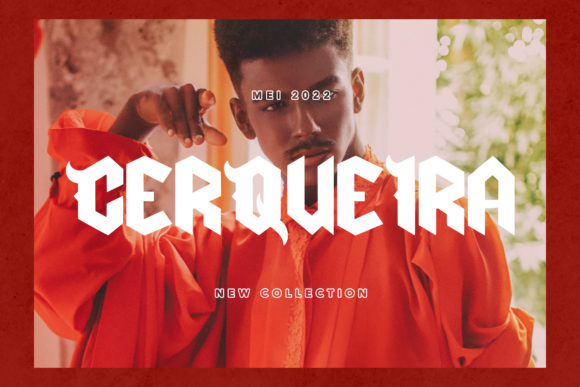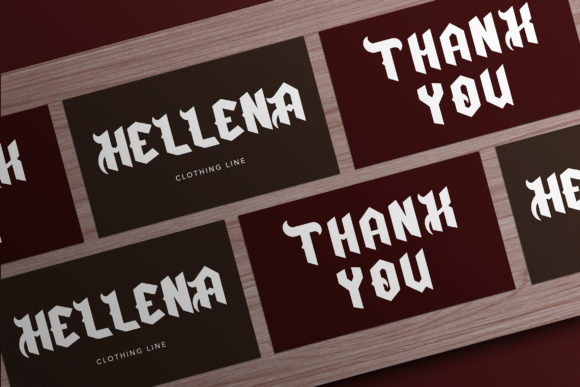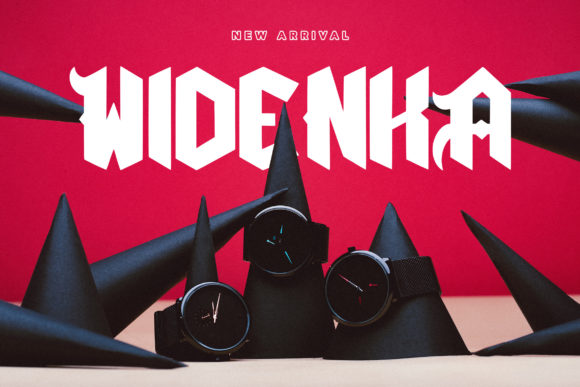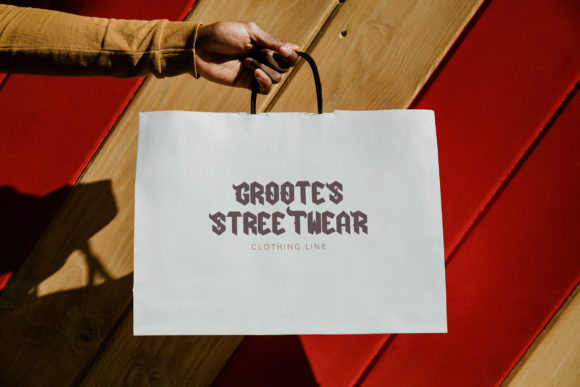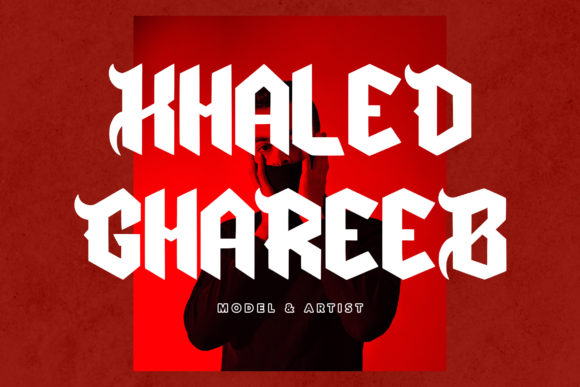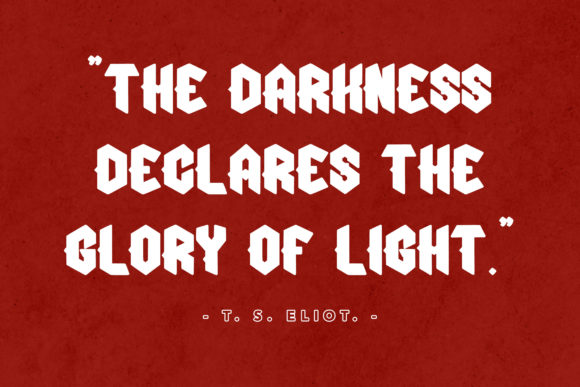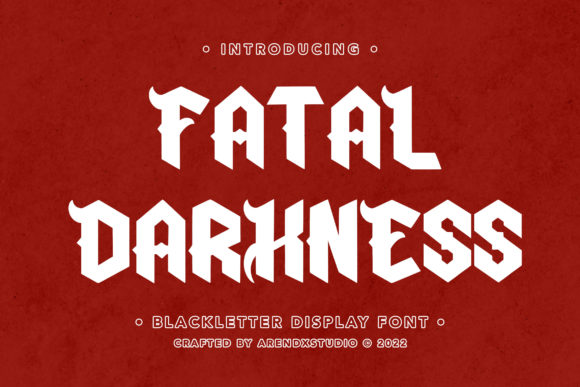
Unleash the Horror: Introducing Fatal Darkness Font
Are you a designer or crafter looking for a font that will add a touch of darkness and mystery to your projects? Look no further than Fatal Darkness Font, a stunning blackletter display font that is inspired by gothic and horror styles. With its unique shape and PUA encoding, this font is perfect for any project that requires a bold and eerie statement.
The Inspiration Behind Fatal Darkness Font
Fatal Darkness Font is a masterful blend of gothic and horror elements, carefully crafted to evoke a sense of foreboding and unease. The font’s design is inspired by the darker corners of history, where mystery and terror reign supreme. The result is a font that is both haunting and beautiful, perfect for designers and crafters who want to add a touch of macabre to their work.
What Makes Fatal Darkness Font So Special?
So, what sets Fatal Darkness Font apart from other fonts in its class? Here are just a few features that make it a standout:
- Unique Shape: Fatal Darkness Font boasts a truly unique shape that is both striking and unsettling. Its gothic-inspired design is perfect for creating a sense of drama and tension in any project.
- PUA Encoding: This font is PUA encoded, which means that you can access all of the amazing glyphs and ligatures with ease. This makes it simple to create complex and intricate designs that will leave a lasting impression.
- Blackletter Style: Fatal Darkness Font is a true blackletter display font, with a bold and dramatic style that is perfect for headlines, titles, and other display text.
Fatal Darkness Font is a versatile font that is perfect for a wide range of design and crafting applications. Here are just a few ideas to get you started:
- Halloween-themed designs: Create spooky and atmospheric designs for Halloween, including invitations, posters, and social media graphics.
- Gothic-inspired art: Use Fatal Darkness Font to add a touch of gothic elegance to your art, including illustrations, paintings, and mixed media projects.
- Horror-themed projects: Create terrifying and atmospheric designs for horror-themed projects, including movie posters, book covers, and video game art.
- Wedding and event invitations: Add a touch of darkness and romance to your wedding and event invitations, creating a unique and memorable impression on your guests.
Tips for Using Fatal Darkness Font
Here are a few tips for getting the most out of Fatal Darkness Font:
- Experiment with different sizes: Fatal Darkness Font is a bold and dramatic font, so don’t be afraid to experiment with different sizes to create a striking effect.
- Pair with contrasting fonts: Pair Fatal Darkness Font with contrasting fonts to create a visually interesting effect.
- Use glyphs and ligatures: Take advantage of the font’s PUA encoding to access a wide range of glyphs and ligatures, adding depth and complexity to your designs.